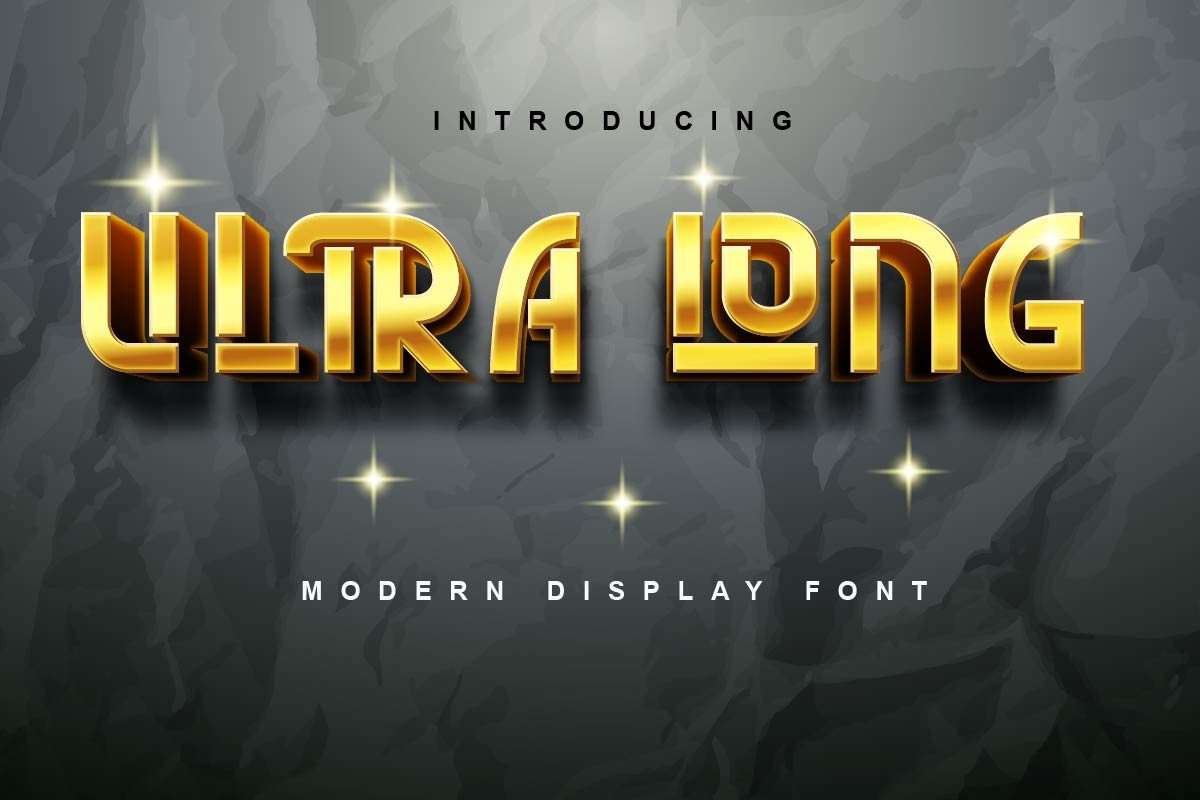
About Ultra Long Font
Ultra long is a stunning blackletter font designed with a soft and attractive handwritten touch. It is perfectly suitable for branding, logos, food, product names, quotes, page covers, and much more!